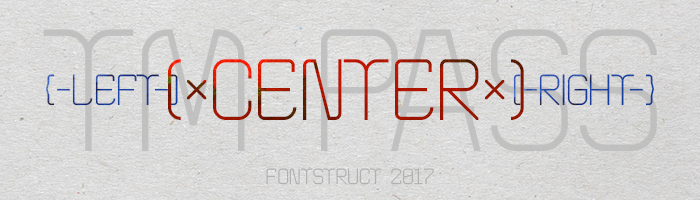
tm Pass
by thalamic
I love that Q and the different look of the {} . Smooth, modern with quirky touches. 10/10
Congratulations! FontStruct Staff have deemed your FontStruction worthy of special mention. “tm Pass” is now a Top Pick.
A TP for a smoothie font. Congratulations
I love this, especially the M, N, and W—totally something I would do. :) I also really love the numbers. They could easily be used for digital displays.